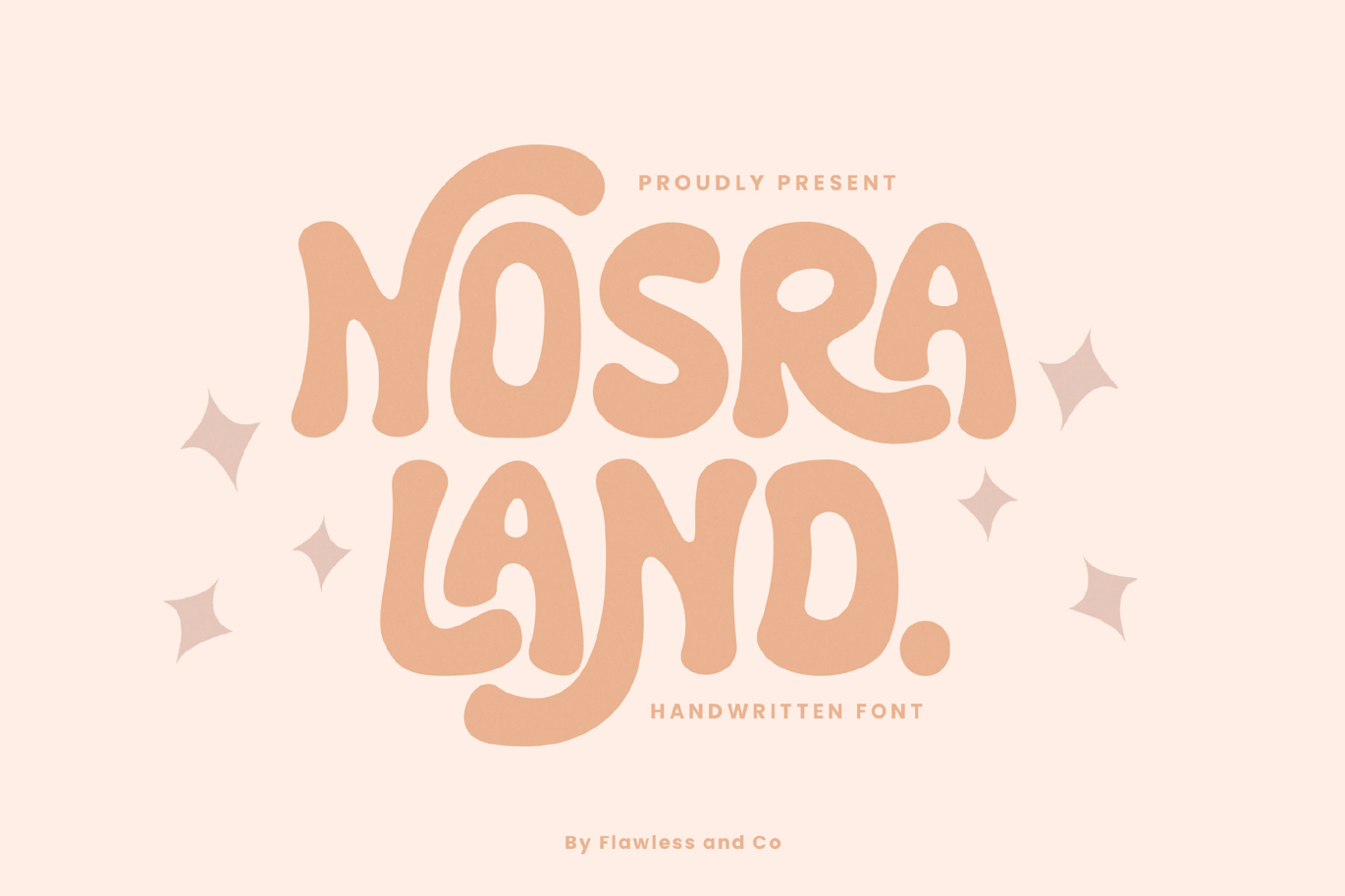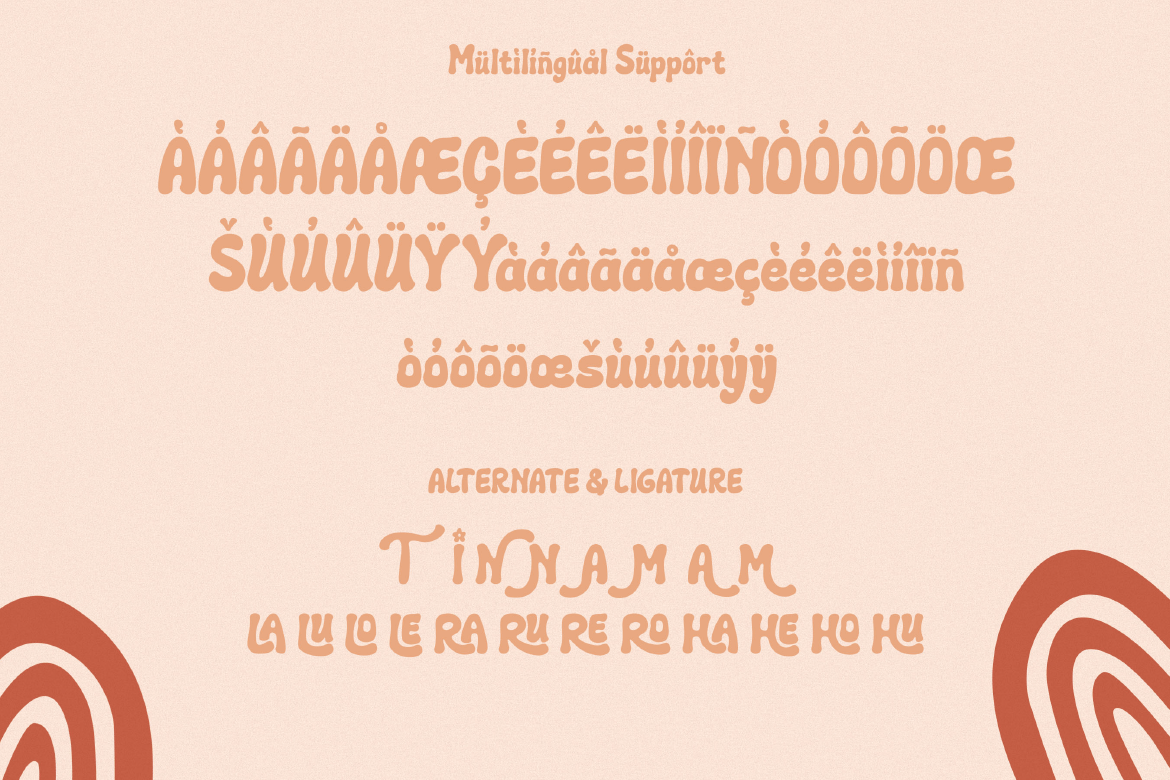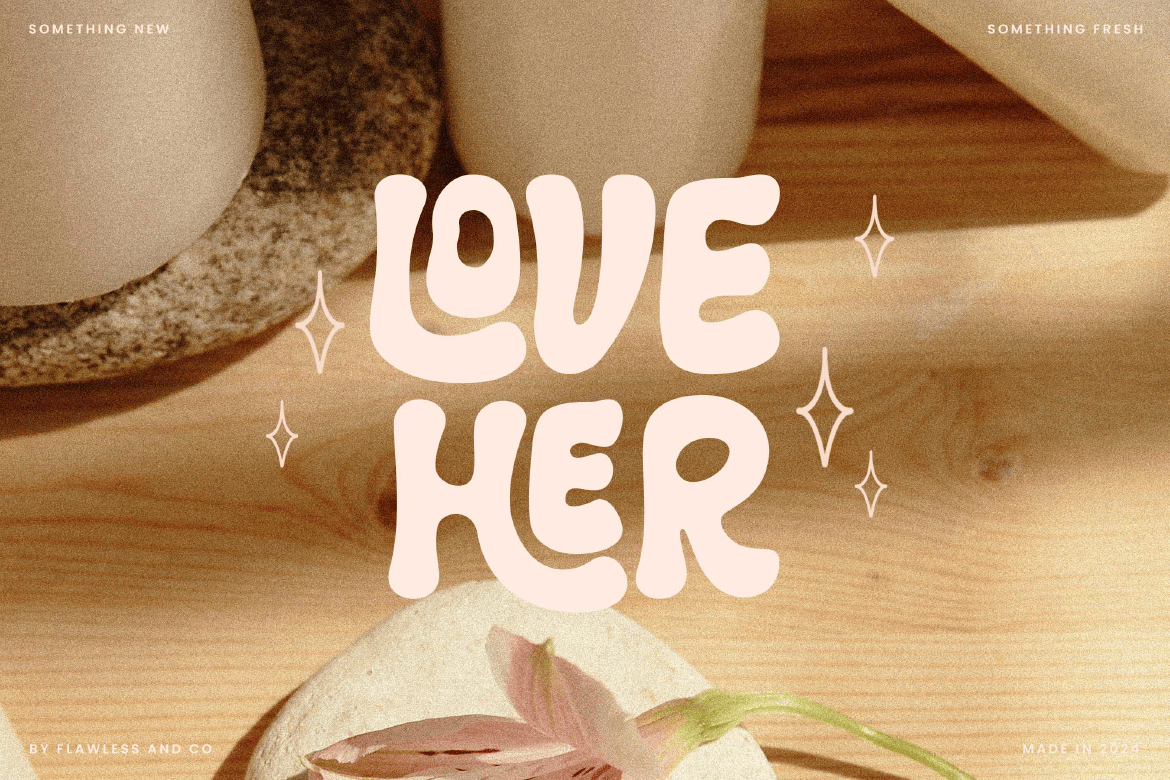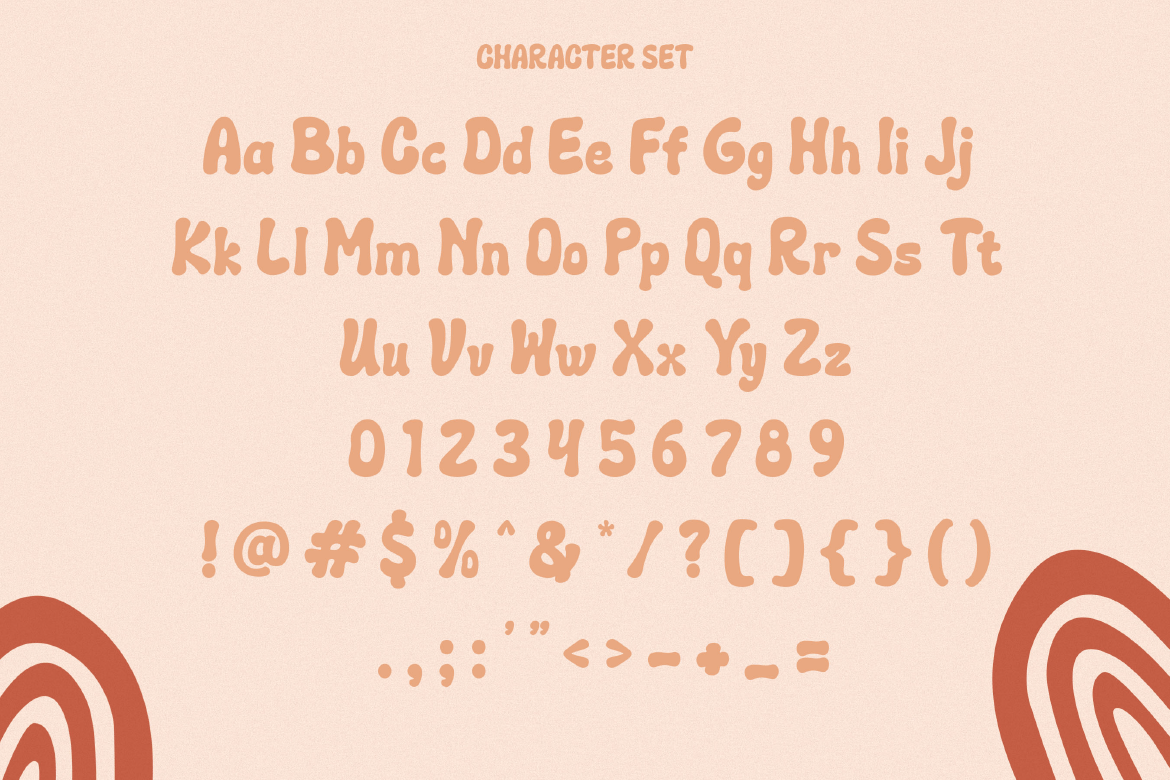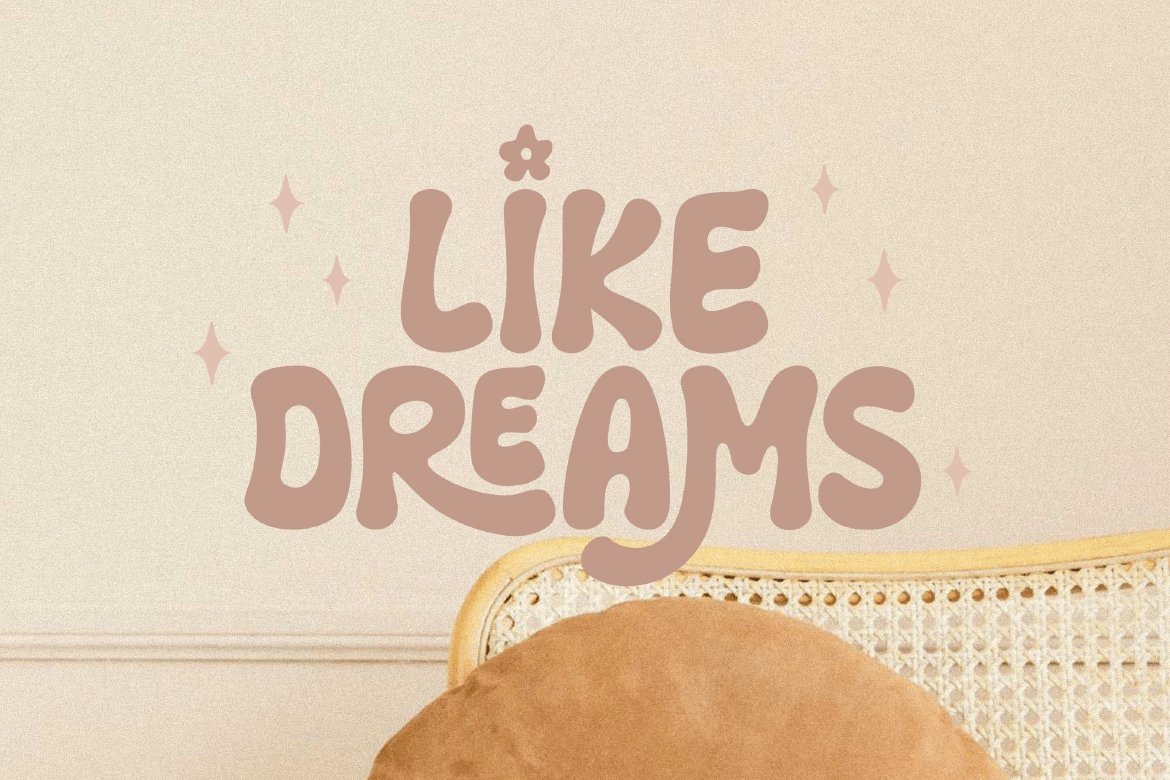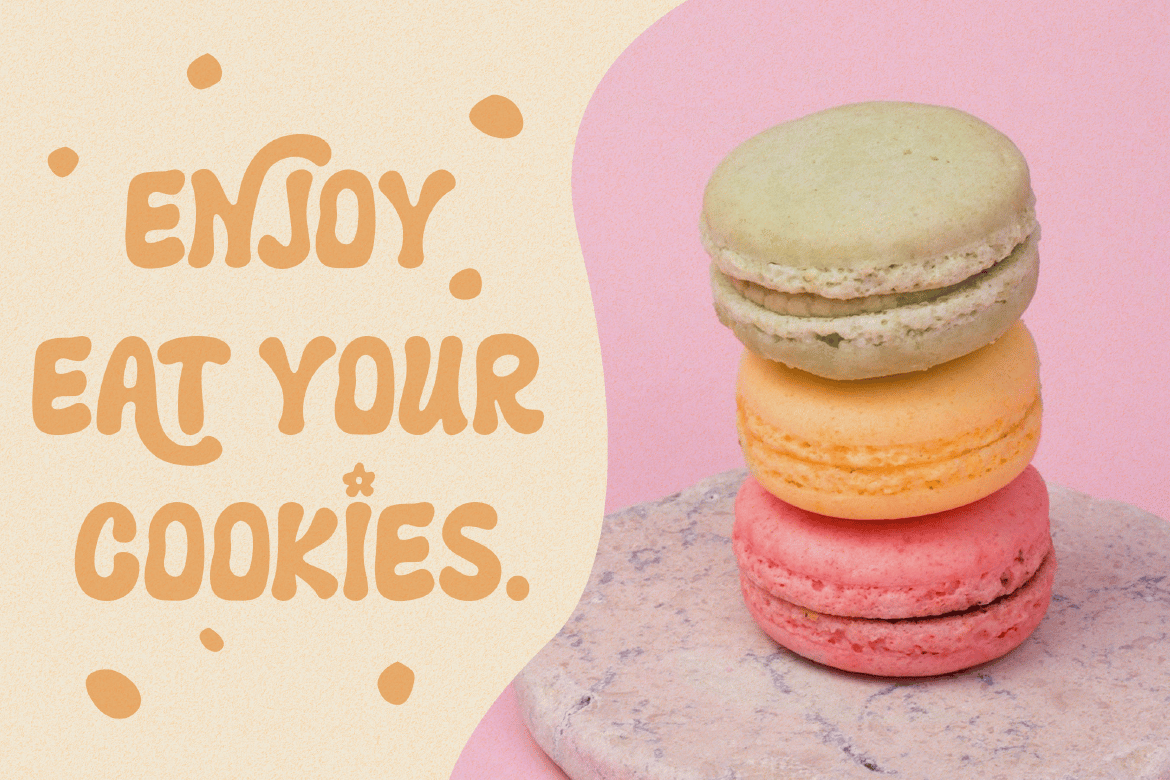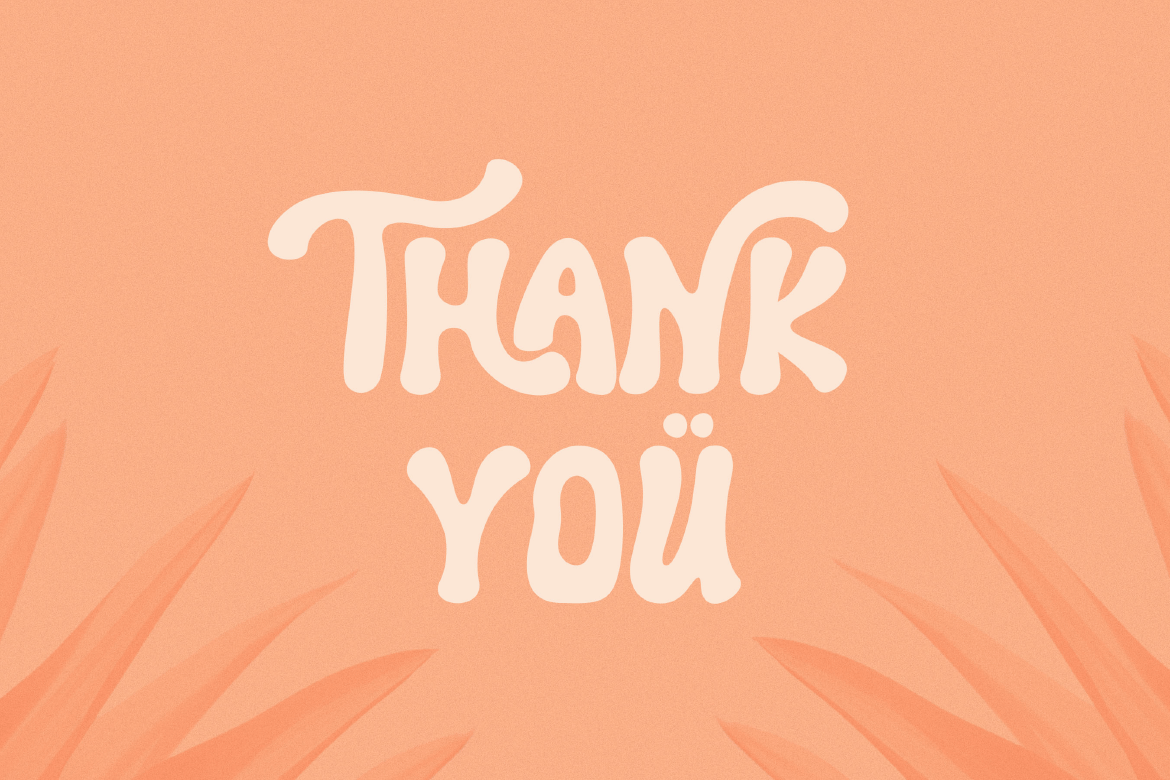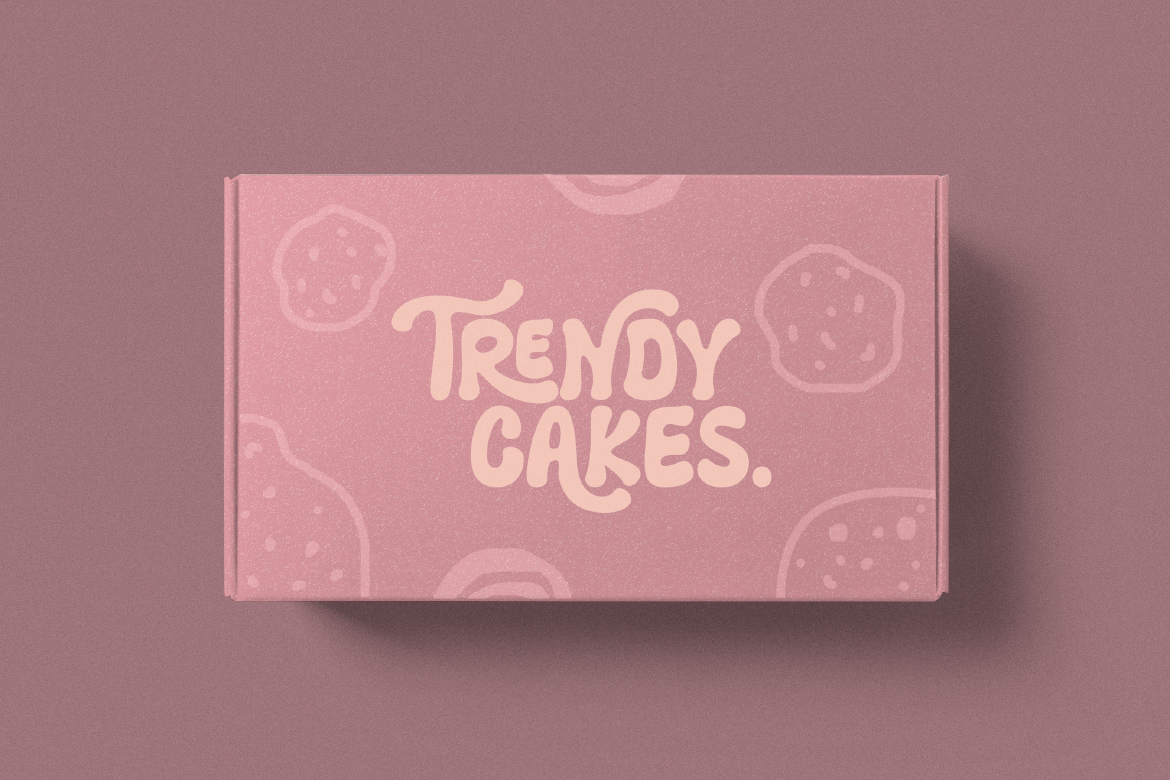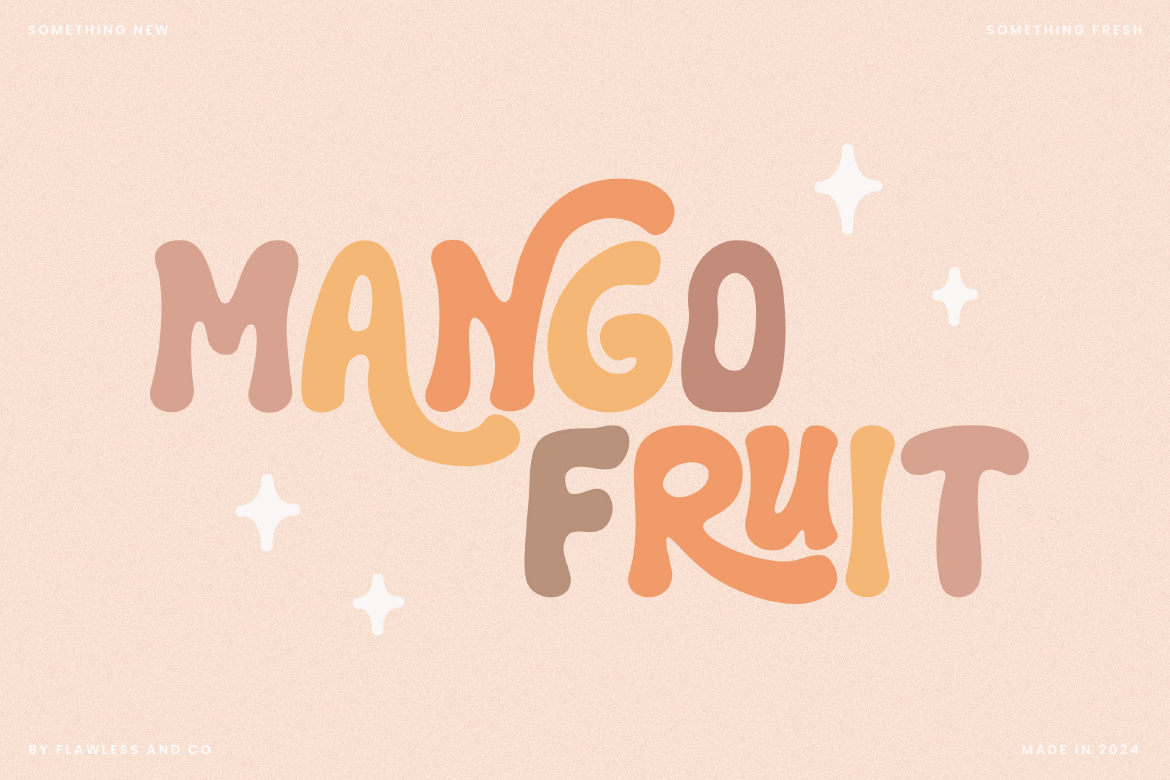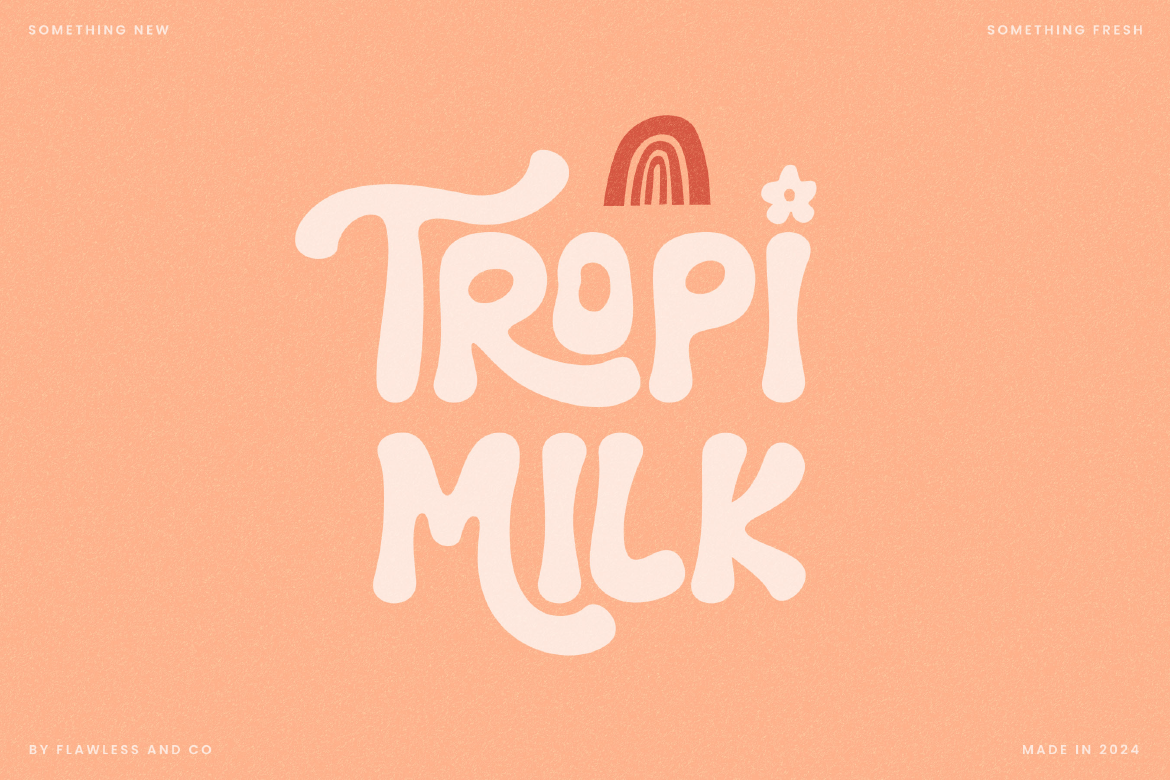
Nosra Land – Handwritten Brand Font
Introducing “Nosra Land” a handwritten brand font. Elevate your packaging designs with “Nosra Land,” a versatile handwritten brand font that strikes the perfect balance between warmth and simplicity. With its organic charm and clean lines, Nosra Land adds a touch of authenticity and modernity to your packaging, making every product stand out on the shelves.